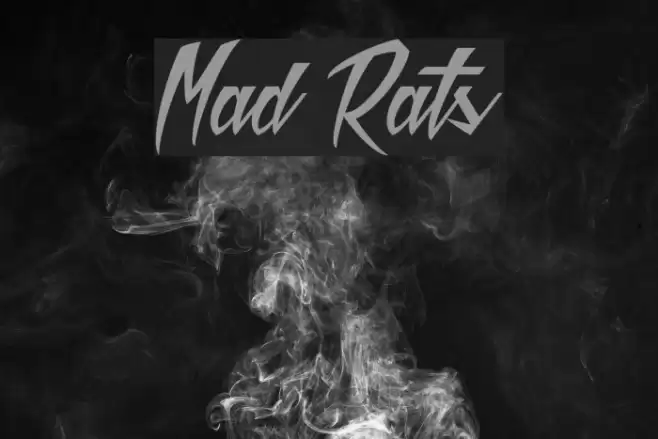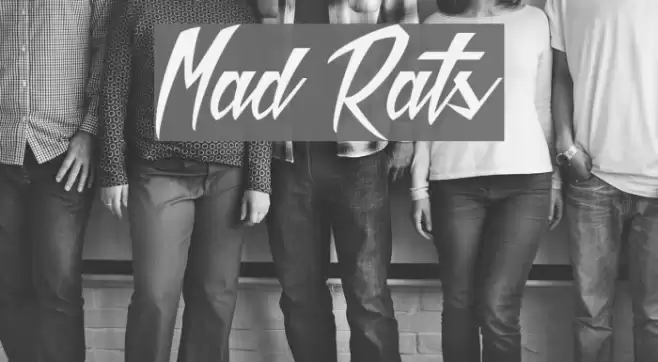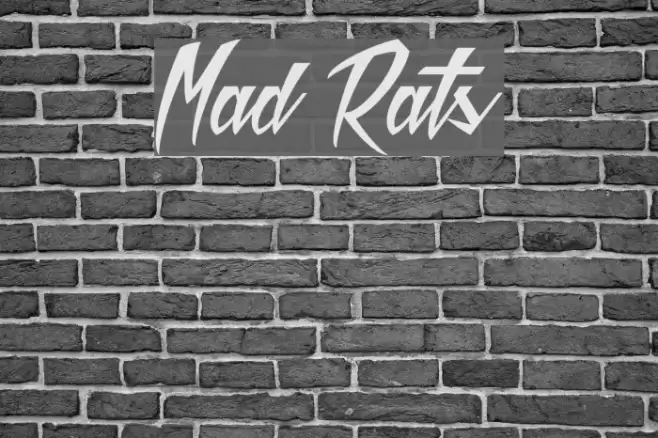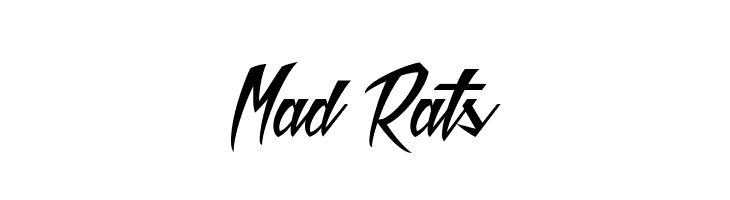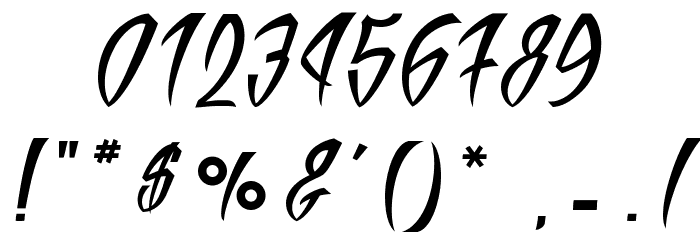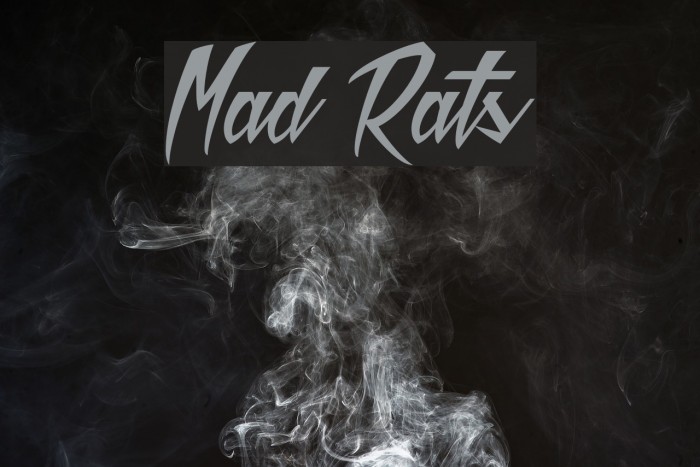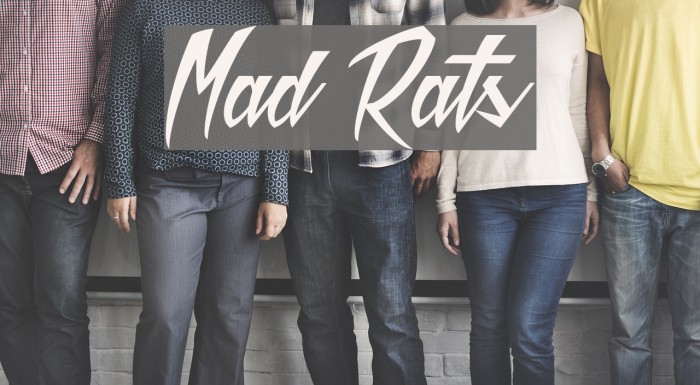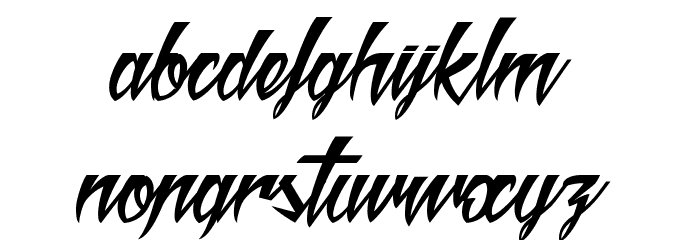
Mad Rats Font
Mad Rats Description
This font features a dynamic and energetic script style, characterized by sharp, angular strokes and a slightly slanted orientation. The uppercase letters exhibit a bold presence with exaggerated curves and pointed terminals, while the lowercase letters maintain a consistent flow with a more compact form. The numerals are distinct and maintain the same angular style, ensuring readability. Special characters are integrated seamlessly, matching the overall aesthetic. The font's design exudes a sense of movement and flair, making it suitable for projects that require a bold and expressive touch.
A dynamic script font with sharp, angular strokes and a bold presence from Uncategorized fonts.
- Proposed Projects: Ideal for branding, posters, music album covers, and any project needing a bold, expressive style.
- Character Spacing: Tight